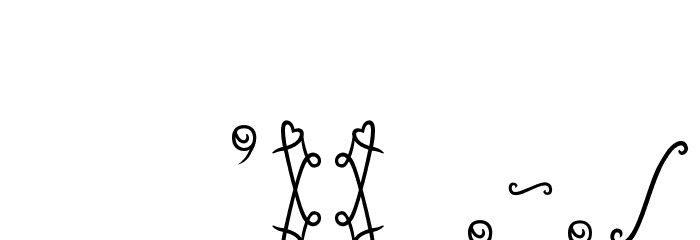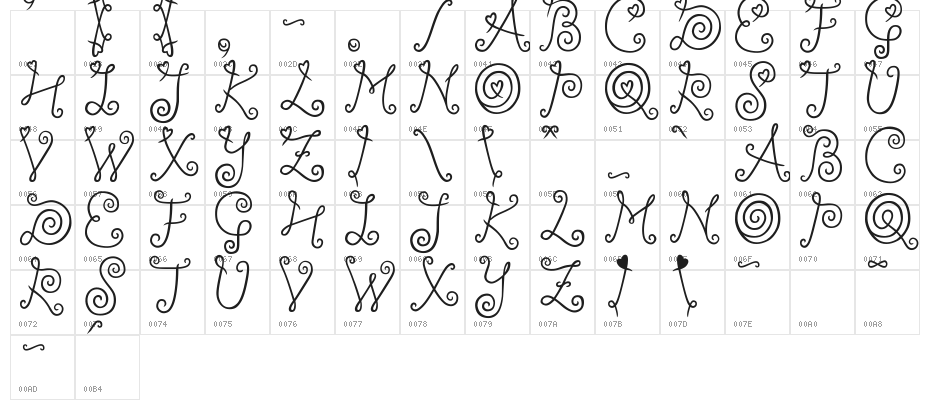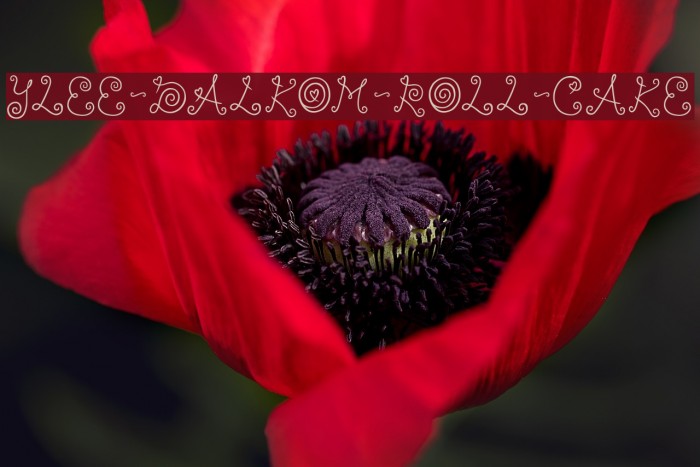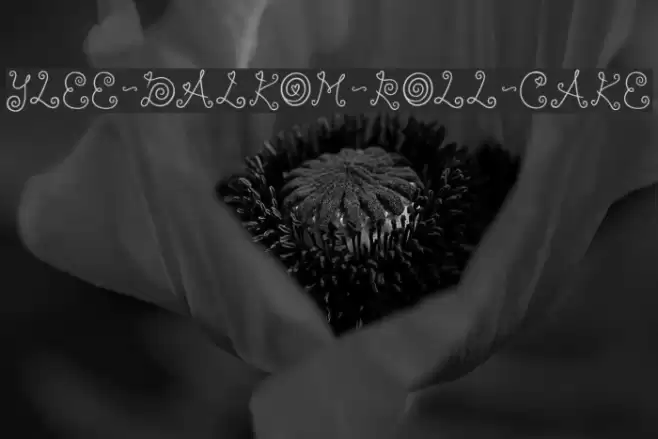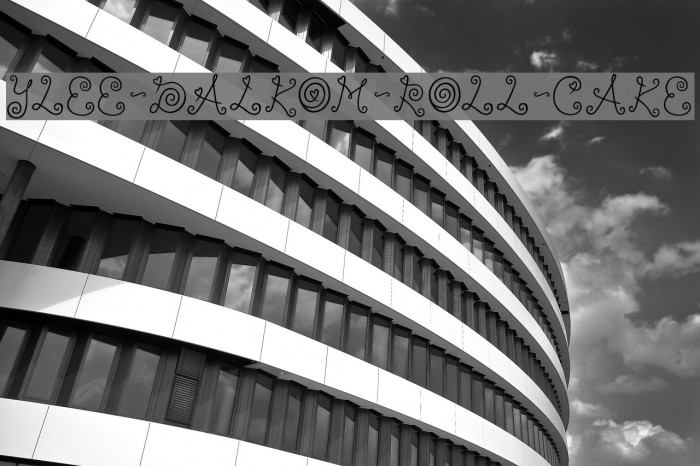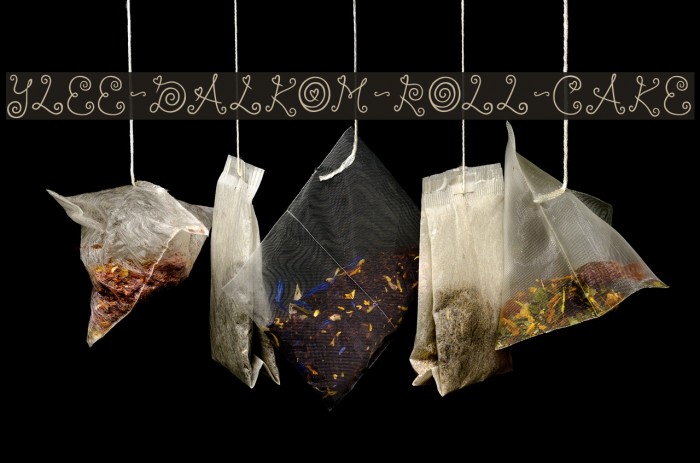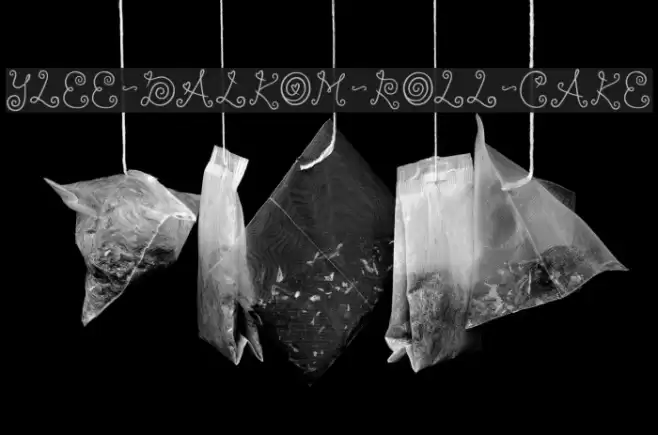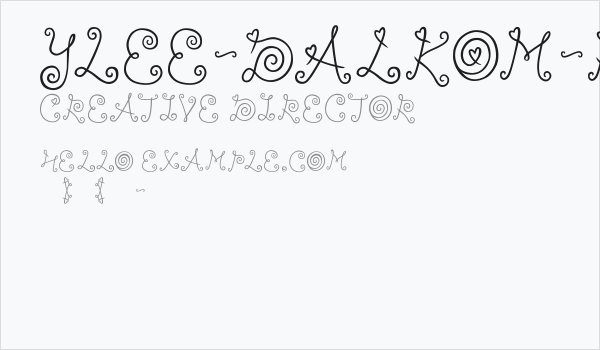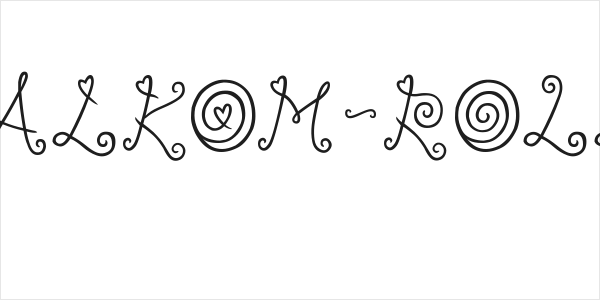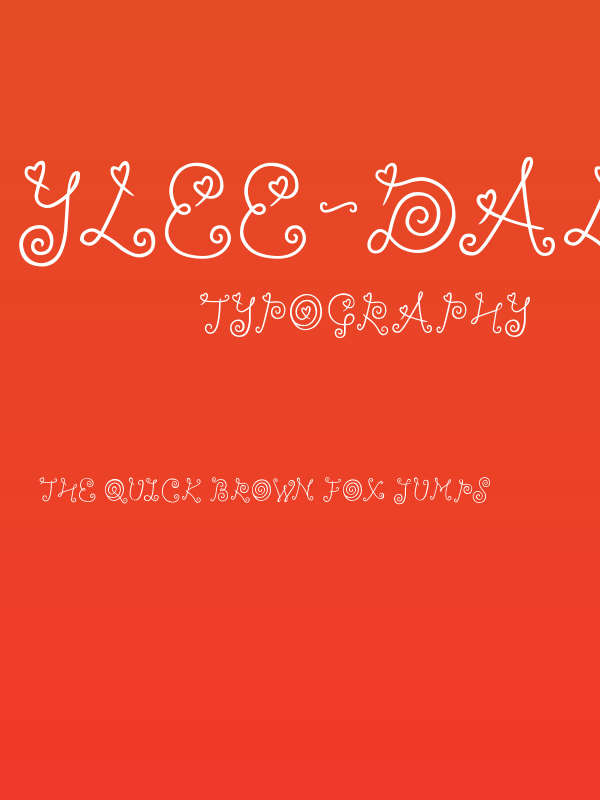
ylee-DALKOM-Roll-Cake Font
ylee-DALKOM-Roll-Cake Description
This font features an ornate and whimsical design, characterized by its playful and decorative elements. Each letter is adorned with unique curls and loops, giving it a lively and artistic flair. The uppercase letters are particularly elaborate, with intricate swirls and heart-like shapes integrated into their structure. The lowercase letters maintain a similar style, ensuring consistency throughout the font. The numbers and special characters are equally decorative, making them stand out with their creative embellishments. This font is perfect for projects that require a touch of elegance and creativity, such as invitations, greeting cards, or branding materials. Its distinct style makes it ideal for capturing attention and adding a unique personality to any design.
| Use Case | Headlines, Logos, Artistic projects |
| Proposed Projects | Ideal for invitations, greeting cards, branding, and artistic projects. |